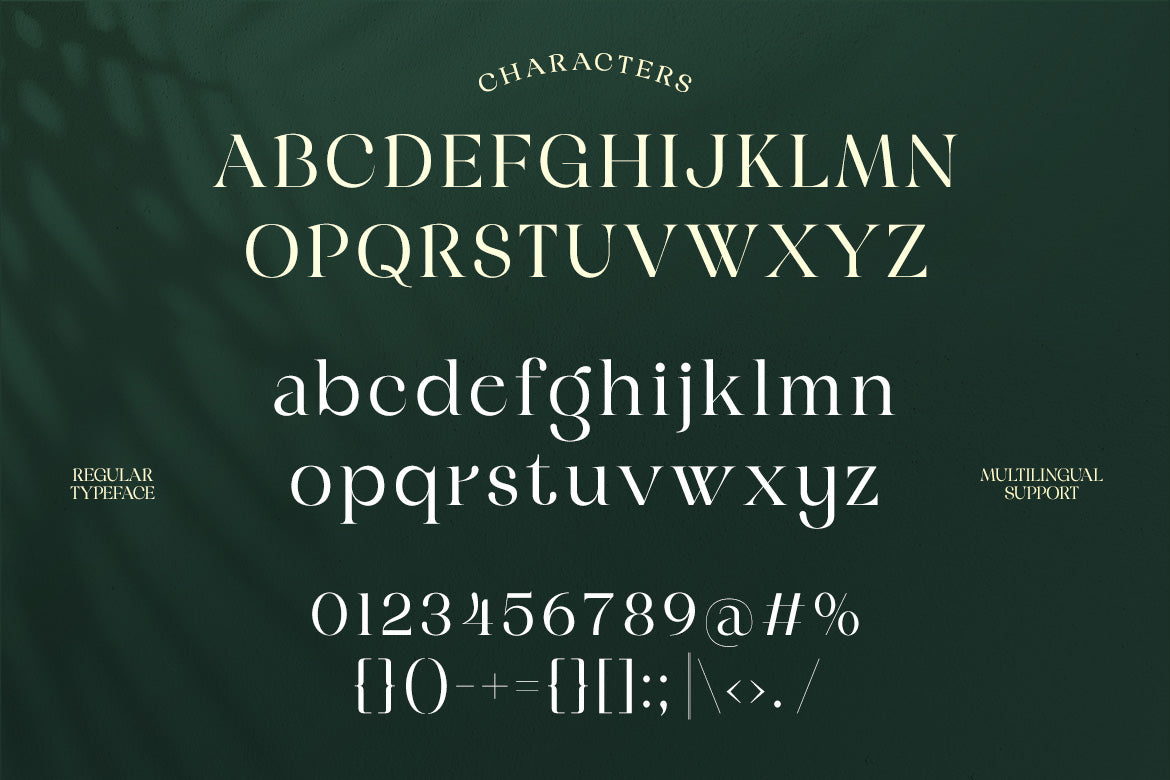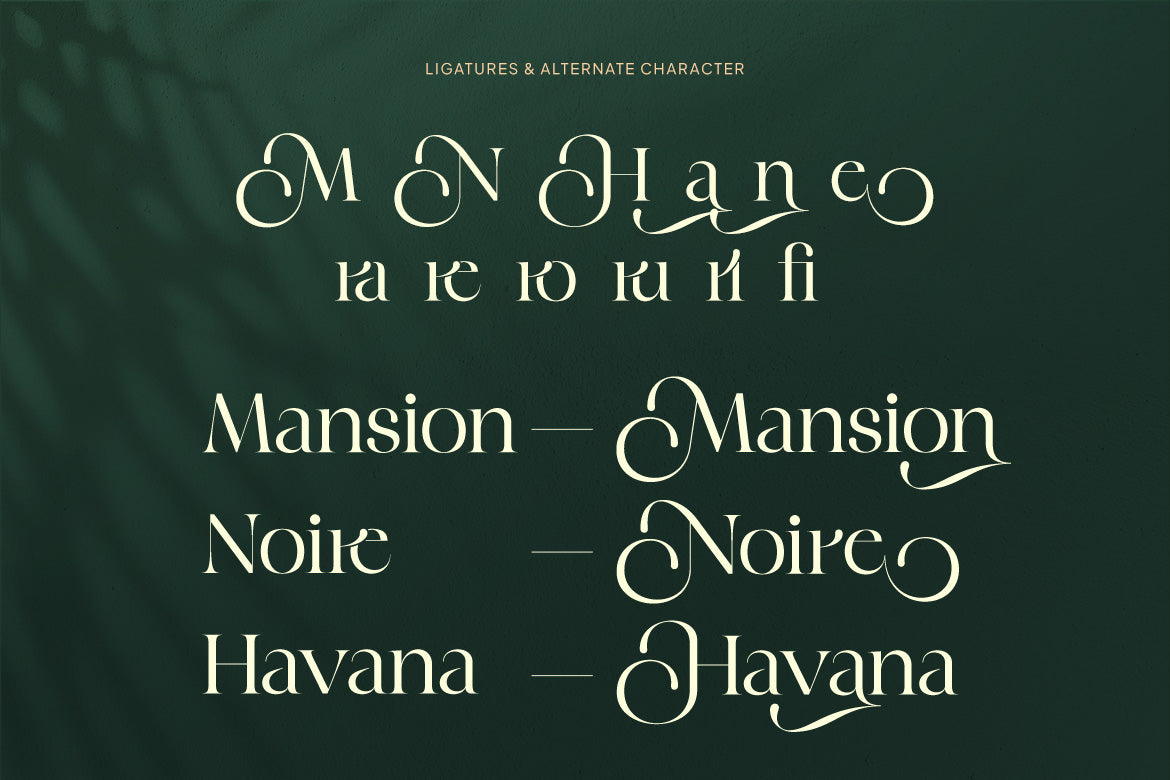
Margline Stylish Serif Typeface Font
Margline is a sophisticated serif typeface that combines classic elegance with modern refinement. Featuring graceful curves, refined contrast, and stylish ligatures, this font brings a luxurious aesthetic to any design. With its delicate alternates and high-fashion appeal, Margline is ideal for branding, editorials, wedding invitations, beauty packaging, and logo design. Its versatile uppercase and lowercase letters are enhanced with swashes and alternate characters, allowing endless creative possibilities. Margline delivers a balance of timeless serif tradition and modern luxury, making it a perfect choice for projects that demand class, beauty, and sophistication.
Relevance and Use Cases Margline is perfect for Luxury branding, fashion magazine titles, editorial headlines, wedding invitations, high-end product packaging, beauty and skincare labels, logo design, boutique signage, modern feminine branding, classy social media posts, premium business cards, signature logos, elegant blog headers, upscale catalogs, perfume branding, and lifestyle content creation.
Margline is a serif typeface featuring uppercase and lowercase letters, ligatures, alternate characters, numerals, and punctuation. It is available in TTF, OTF, and WOFF formats.